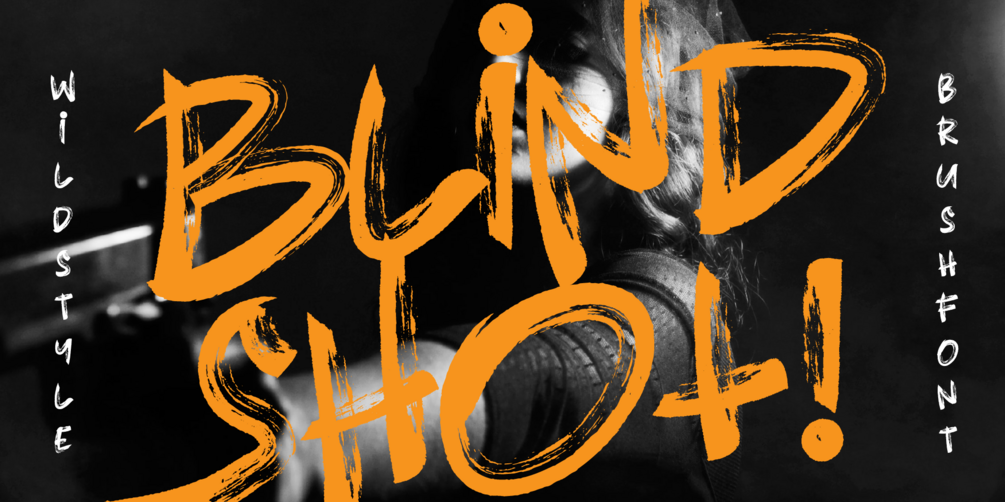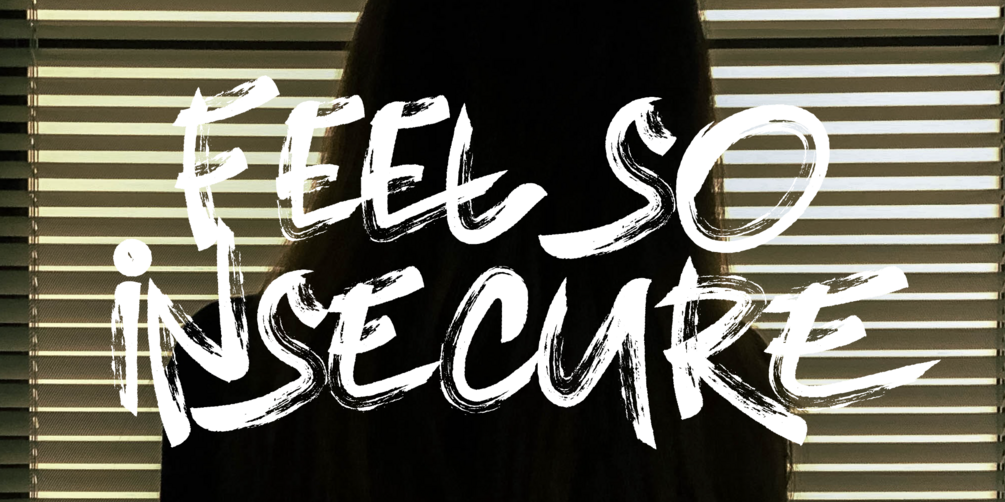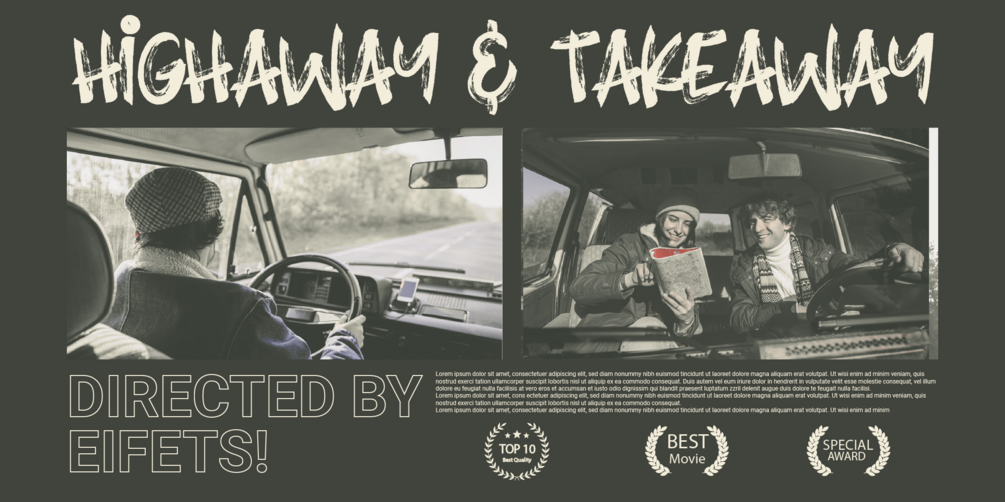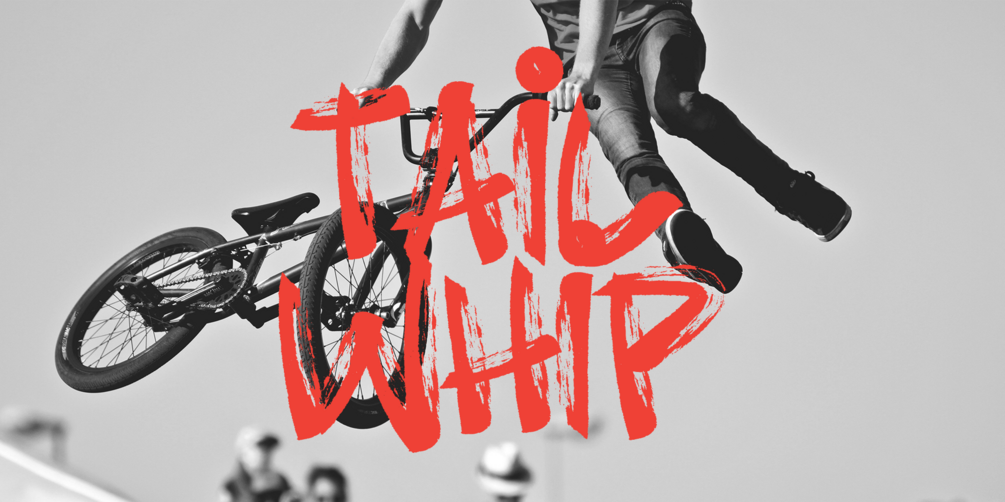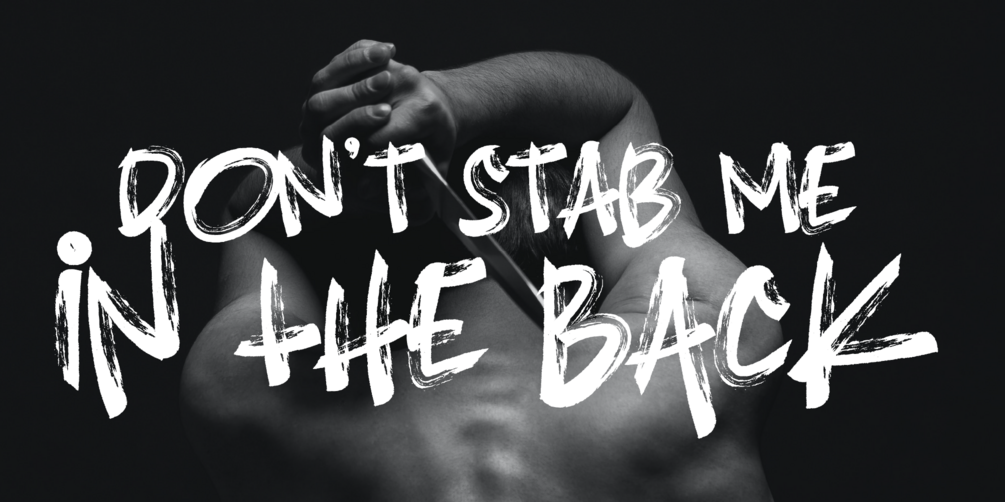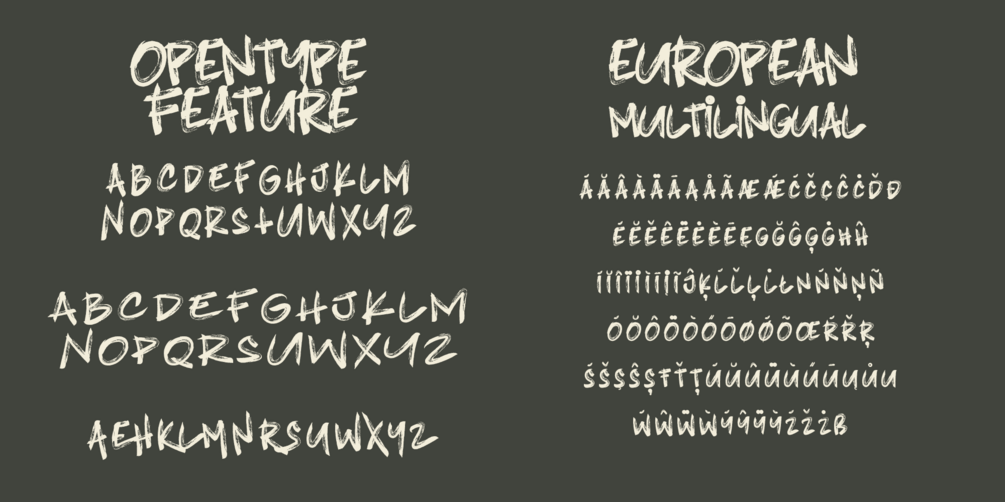
Blindshot - Wild Style Brush Fonts
Introducing the new fonts Blindshot.
Blindshot is a Textured Brush.
Easy readability,strong.
What's Included Inside The Fonts ?
• Uppercase
• Lowercase
• Numerals
• Symbol
• European Multilingual
• Stylistic Set 1
• Stylistic Set 2
• Stylistic Set 3
• Stylistic Set 4